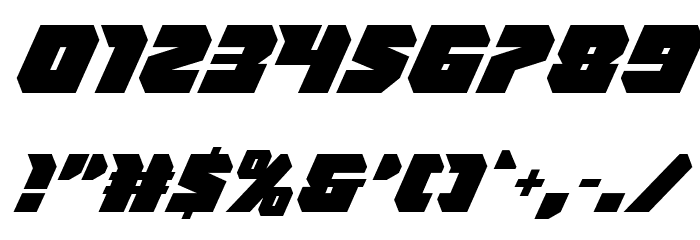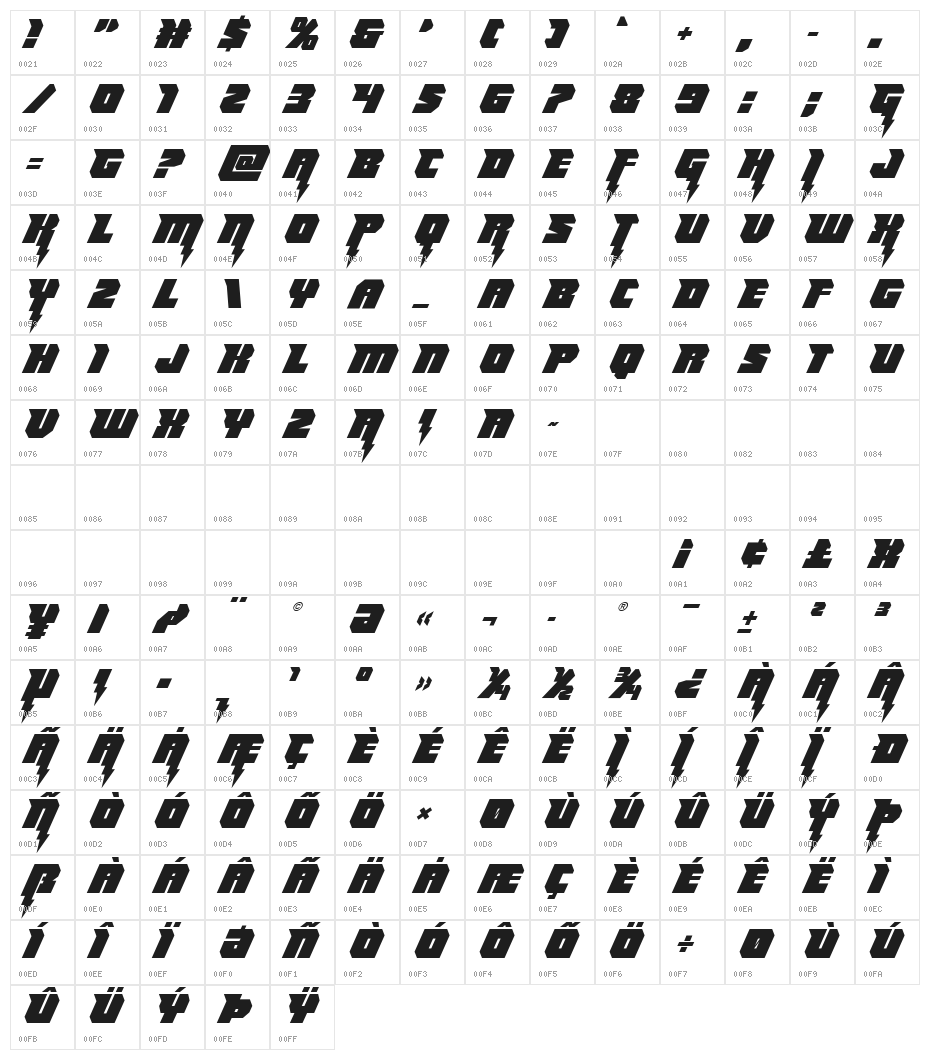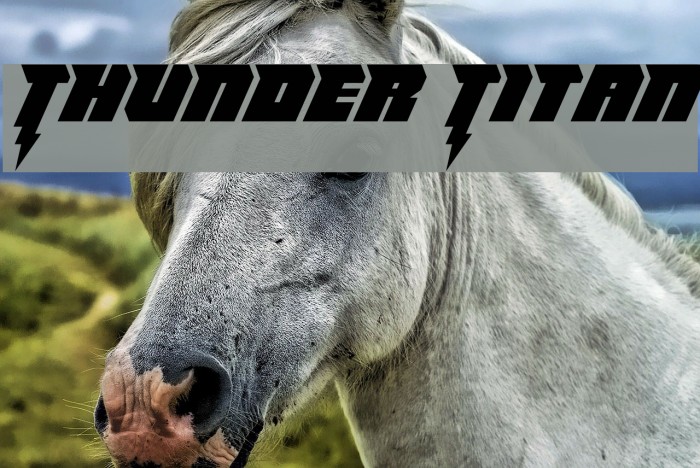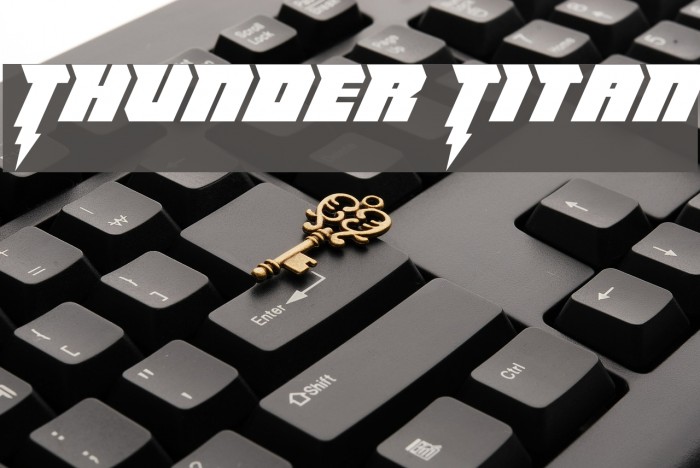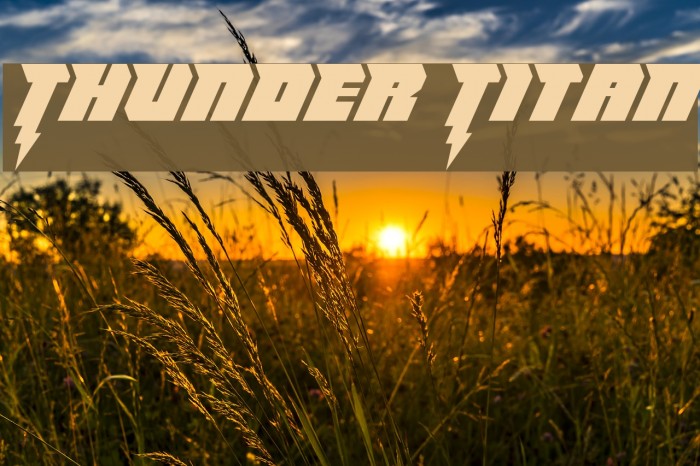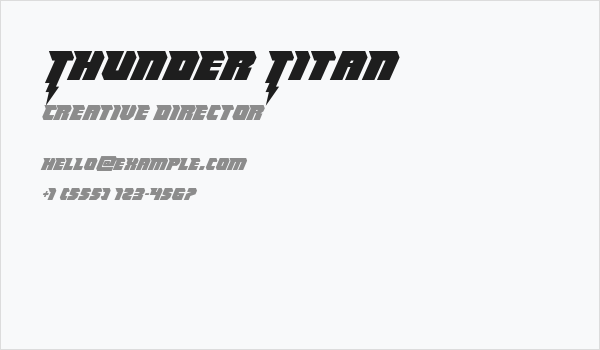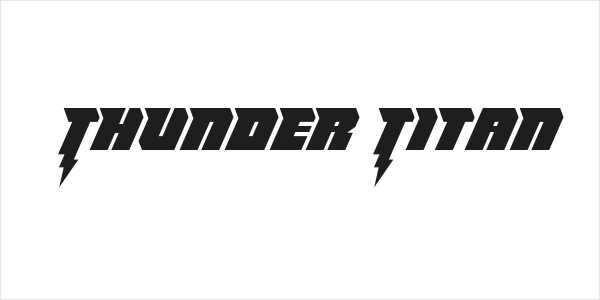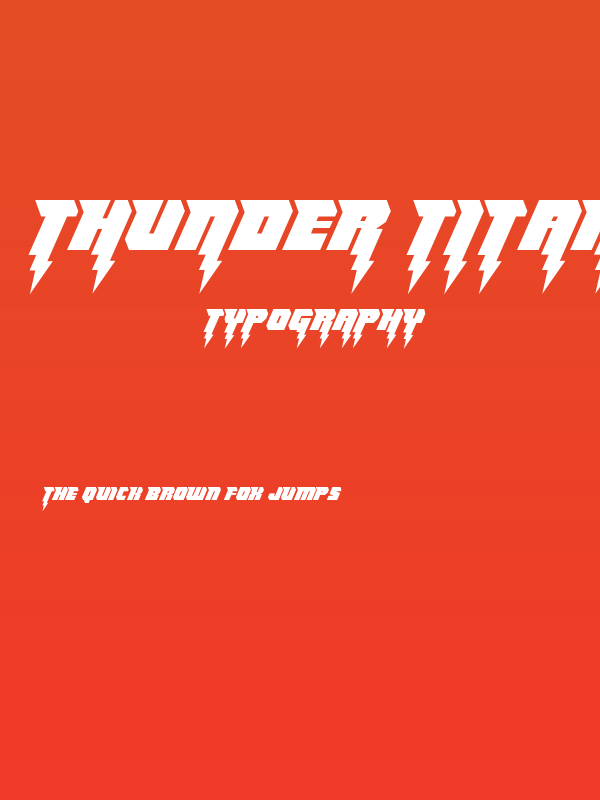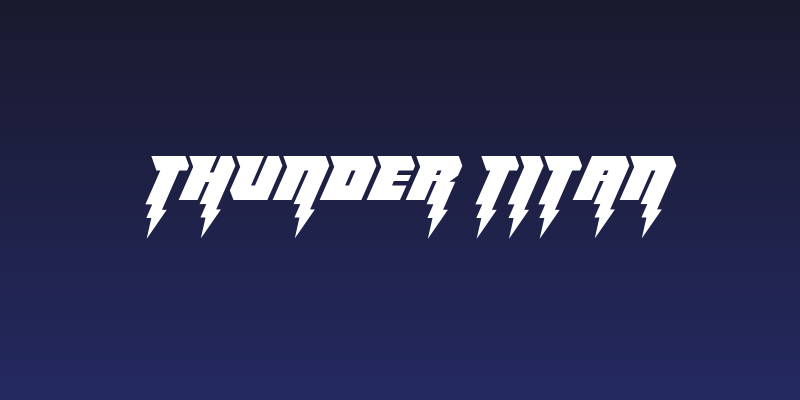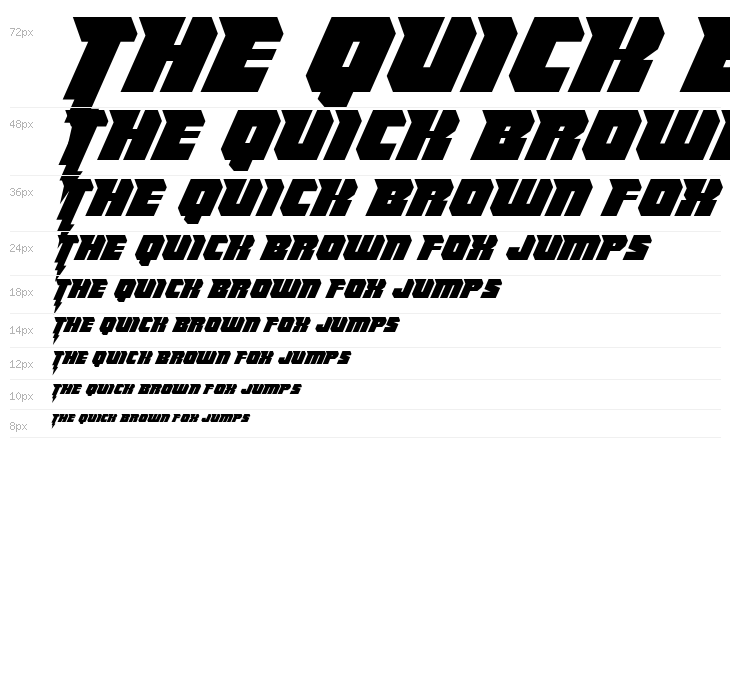
Thunder Titan Font
Thunder Titan Description
This font features a bold and dynamic design, characterized by sharp, angular edges and a distinct lightning bolt motif integrated into each character. The uppercase letters are particularly striking, with a strong geometric influence that conveys a sense of power and energy. The lowercase letters maintain this bold aesthetic, ensuring consistency across the typeface. Numbers and special characters are designed with the same angular style, making them highly legible and visually impactful. The font's unique style makes it ideal for projects that require a strong, attention-grabbing typeface.
| Proposed Projects | Ideal for branding, sports team logos, music album covers, and event posters where a strong, energetic presence is needed. |